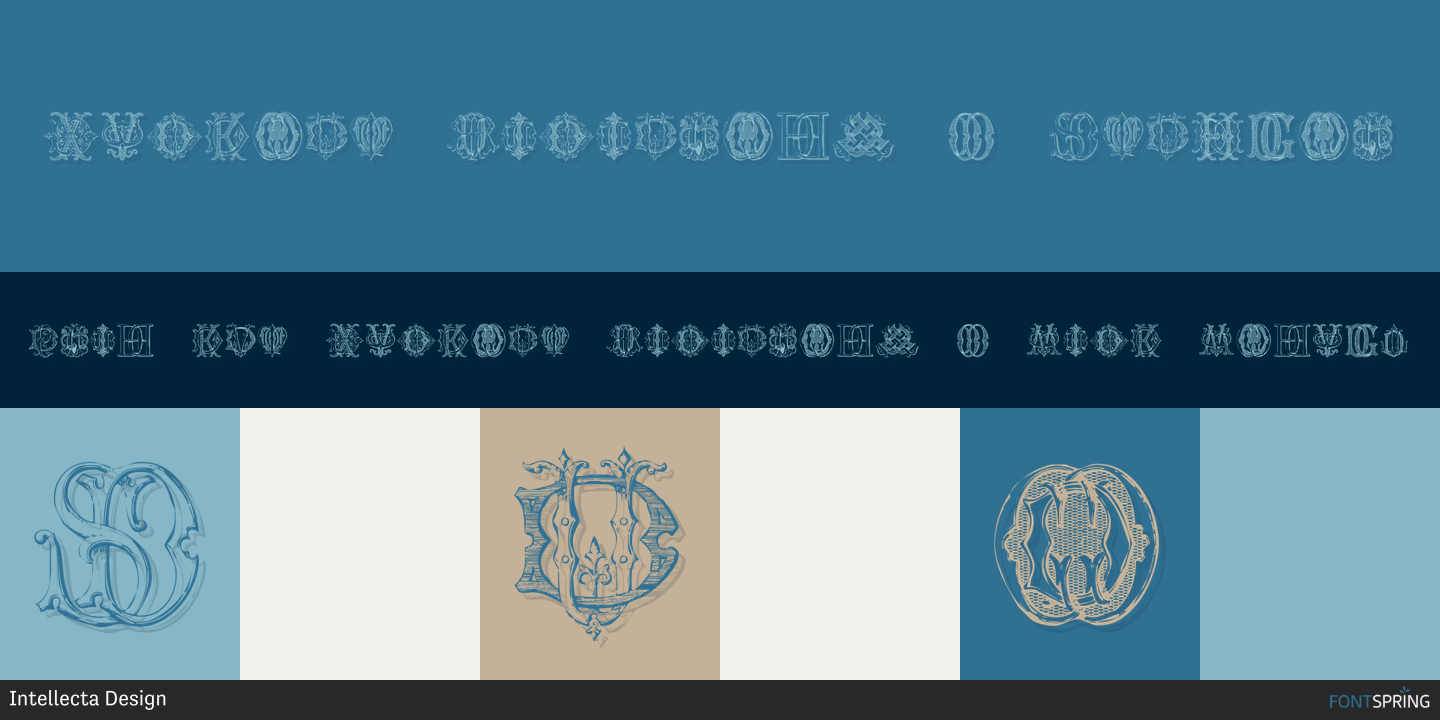
Vintage Monograms D
Designed by Paulo W, Vintage Monograms D is a historical and monograms font family published by Intellecta Design.
Ready to use font with 64 monograms combinign letter D with other letters… victorian vintage style